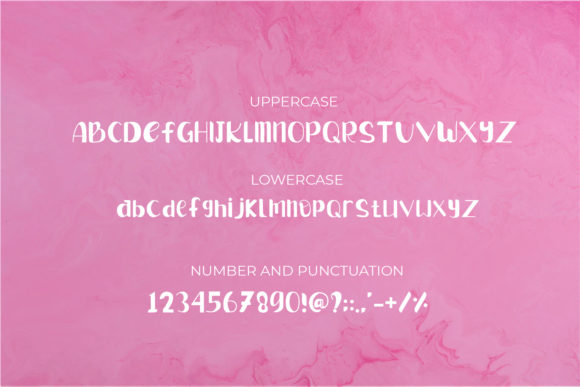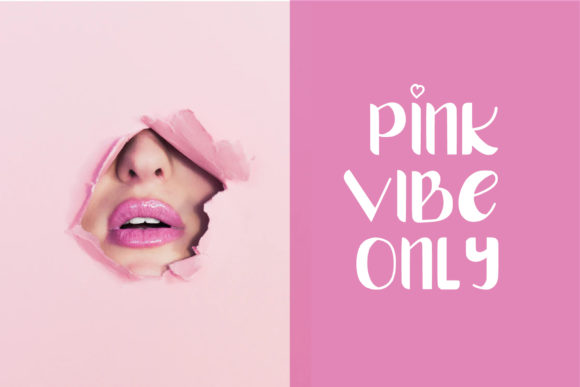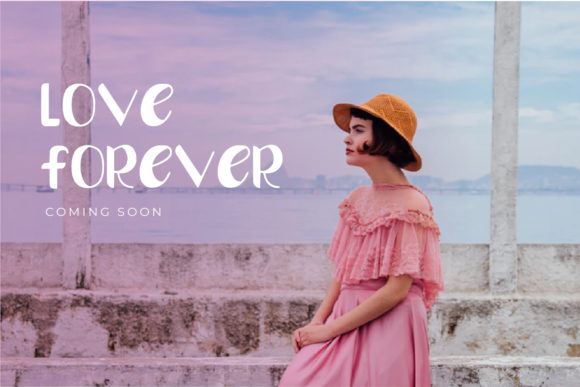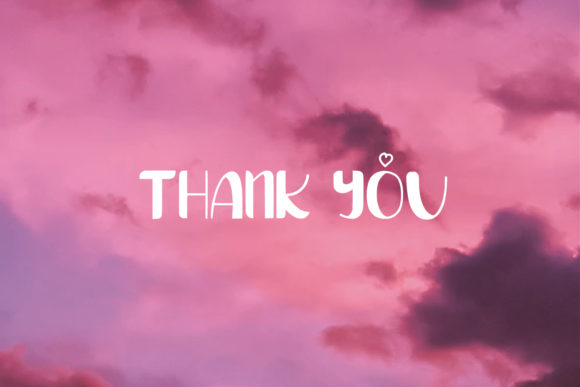
Introduction to Love Cuties Font
You’ve been staring at your blank design canvas for what feels like an eternity, waiting for the perfect font to strike inspiration. And then, it hits you – the perfect combination of style and whimsy that takes your creative project to the next level. That’s what happens when you discover the Love Cuties Font, a bold and cute display font that’s about to become your new best friend.
With its incredibly versatile style, the Love Cuties Font is the ultimate design resource for creatives who want to add a touch of personality to their work. Whether you’re working on a design project that requires a transparent background or a free download for a client, this high-quality font is sure to deliver. Its versatility makes it a valuable asset for designers who want to experiment with different styles and themes.
Key Features of Love Cuties Font
- High-quality design resource for creative projects, perfect for adding a touch of whimsy and romance.
- Love Cuties Font features a transparent background, allowing for seamless integration into various design elements.
- Includes a range of characters, including uppercase and lowercase letters, numbers, and special symbols, making it a versatile design resource.
- Perfect for use in wedding invitations, greeting cards, and other creative projects where a touch of love and romance is needed.
Honest Review: Love Cuties Font
As a designer, I’m always on the lookout for high-quality design resources to add some extra flair to my creative projects. Recently, I stumbled upon the Love Cuties Font, and I have to say, it’s been a game-changer. The free download was a huge plus, and the transparent background makes it easy to layer over other elements in my designs.
Here’s what I love about this font: ✨ It’s incredibly versatile and can be used for a wide range of creative projects, from children’s books to wedding invitations. ✨ The high-quality design ensures that the font looks great even at larger sizes, making it perfect for headings and titles. ✨ The cutesy design is also a great way to add a touch of whimsy to my designs.
However, I do have a few limitations to note: ⚠️ The font is not as extensive as some other font collections, which can make it feel a bit limited at times. ⚠️ Additionally, the font’s cutesy design may not be suitable for all types of projects, particularly those that require a more serious tone.
Overall, I’m really impressed with the Love Cuties Font, and I would highly recommend it to any designer looking for a high-quality, free design resource. Whether you’re working on a children’s book or a wedding invitation, this font is sure to add a touch of love and cuteness to your design.
- Versatile and suitable for a wide range of creative projects
Experiment with different font styles and combinations to create unique designs. Use the font to add a touch of whimsy and playfulness to your creative project. Also, don’t forget to adjust the font size and color to ensure it stands out against a busy background.
The Love Cuties Font is perfect for creating designs for children’s products, greeting cards, and party invitations. It’s also great for adding a touch of fun and playfulness to logos, branding materials, and social media graphics.